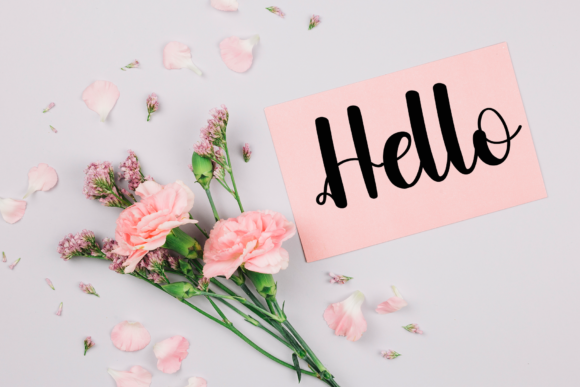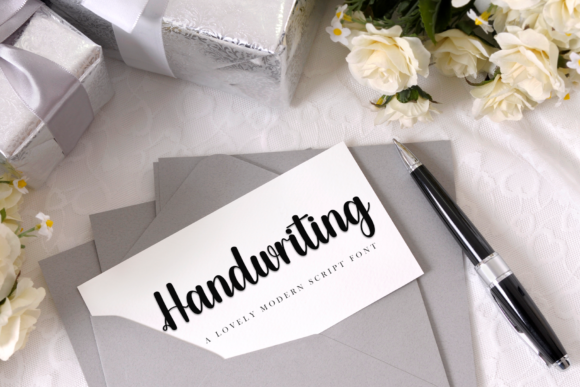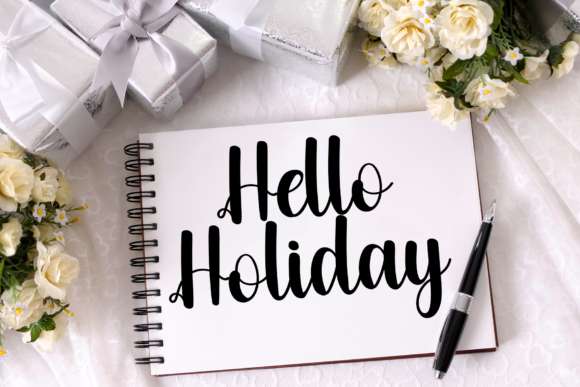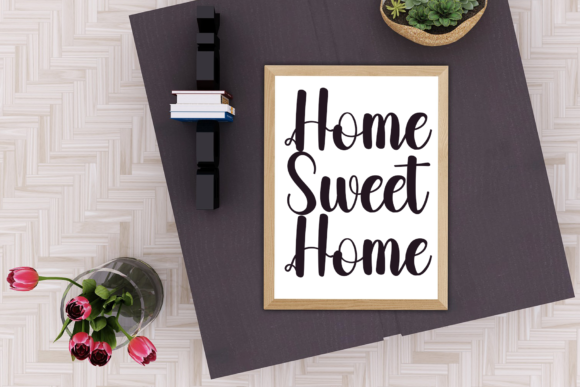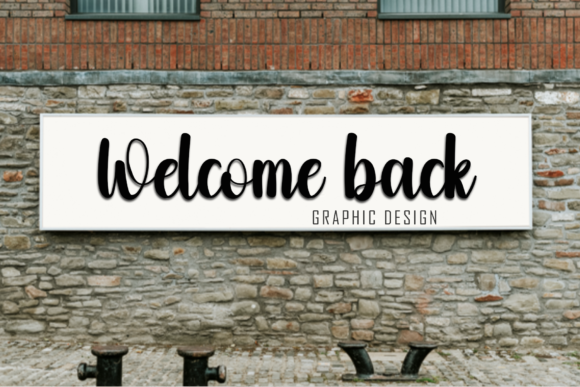
Have you ever stared at a blank page, waiting for the perfect font to spark your creativity? For many designers, this moment is a daily occurrence. The hunt for the perfect font can be a daunting task, but what if you stumbled upon one that added a touch of luxury and whimsy to your design? Introducing the Burger Font, a sweet and flowing script font that’s sure to capture your heart.
With its elegant characters that dance along the baseline, the Burger Font is the perfect addition to any design project. Whether you’re creating a wedding invitation, a logo, or a social media post, this font will add a touch of sophistication and playfulness to your work. For designers, the Burger Font is a valuable asset that will take their designs to the next level.
Burger Font Key Features
- Character Count: 1280 glyphs
- Language Support: Supports over 200 languages, including Latin, Cyrillic, and Greek scripts
- Unique Characteristics: Burger Font features a unique, hand-drawn design with a playful and casual feel, making it perfect for branding and marketing materials
Burger Font Review
Overall, I’m quite impressed with the Burger Font. The designer has done a great job in creating a unique and playful font that’s perfect for casual, laid-back brands.
- ✨ Unique design: The font has a fun, cartoonish feel to it, making it ideal for brands that want to stand out.
- ✨ Consistent weight: The font has a consistent weight across all the styles, making it easy to use and maintain.
- ✨ Good for headings: The font is perfect for headings, as it adds a touch of personality to your brand.
- ⚠️ Limited language support: The font only supports Latin characters, which might be a problem for brands that target non-English speaking audiences.
- ⚠️ Not ideal for body text: The font is quite large and bold, making it less suitable for body text. It’s best to use it for headings and titles.
- ⚠️ Limited customization options: The font is quite fixed in its design, which means you can’t make too many changes without affecting its overall look.
Overall, I think the Burger Font is a great choice for brands that want to add some personality to their design. Just be aware of its limitations and use it wisely.
Use Burger Font to create eye-catching headings and titles for your designs.
Use Burger Font to add a touch of whimsy and playfulness to your designs.
Use Burger Font to add a touch of personality to your presentations and documents.
Use Burger Font for:
- Food-related designs, such as menus and packaging.
- Children’s designs, such as birthday invitations and party decorations.
- Playful and whimsical designs, such as greeting cards and gift tags.
Remember to use Burger Font in moderation, as it can be overwhelming in large quantities.
Alternatives to Burger Font for Designers
Great Vibes is a beautiful, elegant script font perfect for creating a warm and inviting atmosphere. It’s ideal for use in headings, logos, and other design elements where a touch of sophistication is needed. In comparison to Burger Font, Great Vibes has a more refined and classic feel, making it suitable for a wider range of design applications.
Pacifico is a modern script font with a relaxed, beachy vibe. It’s perfect for creating a laid-back, casual atmosphere and is ideal for use in headings, quotes, and other design elements where a touch of whimsy is needed. Compared to Burger Font, Pacifico has a more fluid and organic feel, making it suitable for designs that require a sense of movement and energy.
3. Lobster
Lobster is a fun, playful script font that’s perfect for creating a bold and eye-catching atmosphere. It’s ideal for use in headings, logos, and other design elements where a touch of personality is needed. In comparison to Burger Font, Lobster has a more exaggerated and whimsical feel, making it suitable for designs that require a sense of fun and playfulness.
Dancing Script is a elegant, handwritten script font that’s perfect for creating a sophisticated and luxurious atmosphere. It’s ideal for use in headings, logos, and other design elements where a touch of elegance is needed. Compared to Burger Font, Dancing Script has a more refined and polished feel, making it suitable for designs that require a sense of sophistication and glamour.